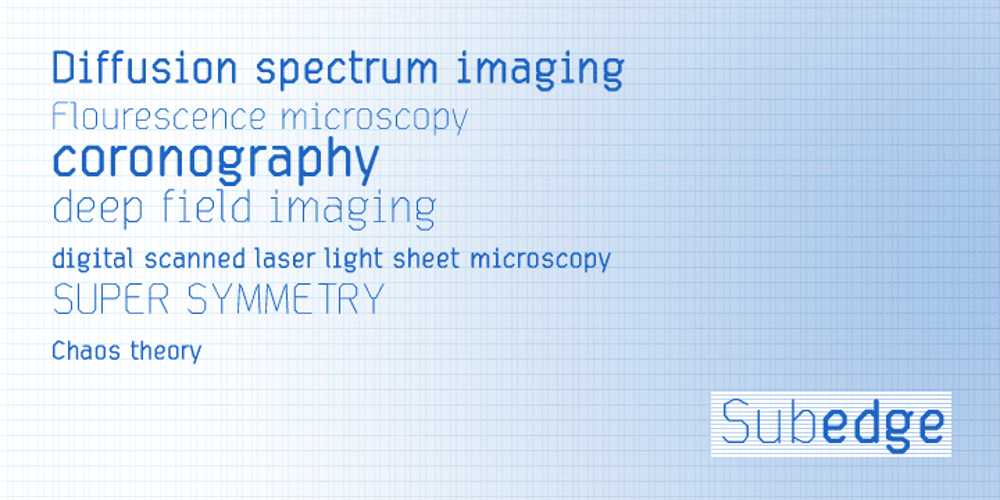
Subedge
Subedge font
Subedge Font Family was designed by published by Subtitude. Subedge contains 2 styles and family package options. Subedge is an angular font made for short notice and cold explanations. Use it in small sizes; it will look rounded.